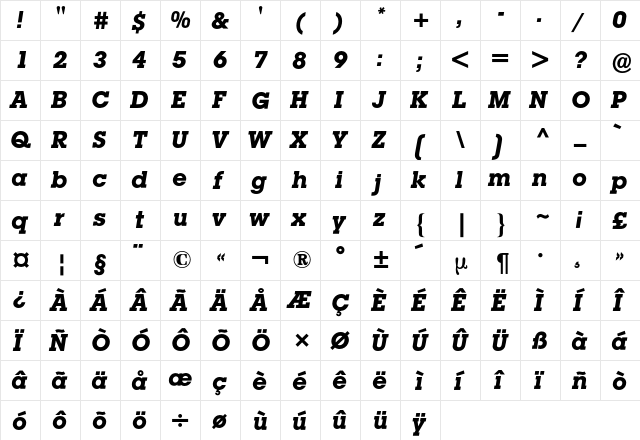
Lubalin BQ Regular
Design Context for Lubalin BQ Typeface
Lubalin BQ offers clean, dependable letterforms without strong stylistic allegiance, making it a practical choice for designers who need flexibility.